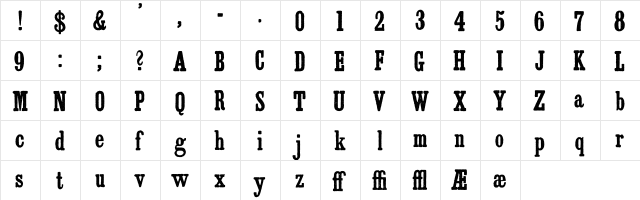
Archive Antiqua Extra Cond Regular
Design Context for Archive Antiqua Extra Cond Typeface
Archive Antiqua Extra Cond is a composed and adaptable typeface that performs quietly and consistently across a wide range of design contexts. Its narrow stance lets it pack a punch even in space-constrained designs.
Pro Tip: Use Archive Antiqua Extra Cond in both headline and body roles to test its range before committing to a single application.